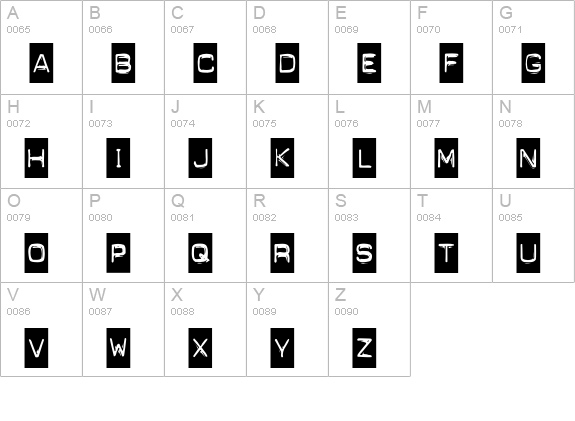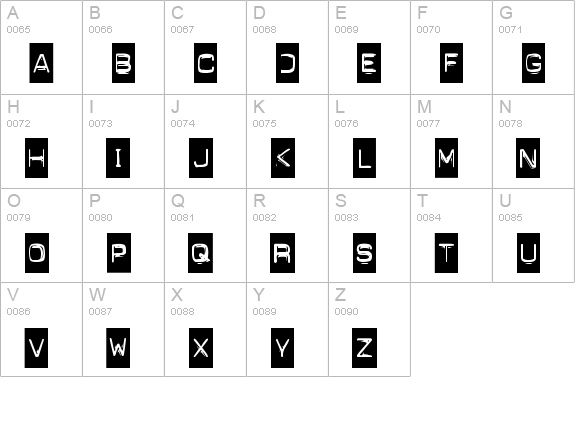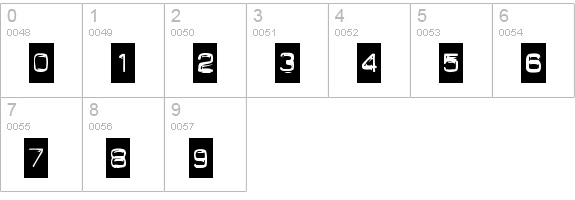
Punchlabel Font Details
Introducing Punchlabel font, a modern and stylish typeface that will add a touch of sophistication to your designs. With its bold yet elegant appearance, Punchlabel is perfect for creating eye-catching headlines, logos, posters, and more. The clean lines and sharp edges of this font give it a sleek and contemporary feel, making it ideal for both digital and print projects. What's even better is that Punchlabel font is available for free download at FontsMarket.com. That's right, you can easily access this versatile font without any cost. So why wait? Elevate your designs today with Punchlabel font and make a statement with its unique aesthetic.